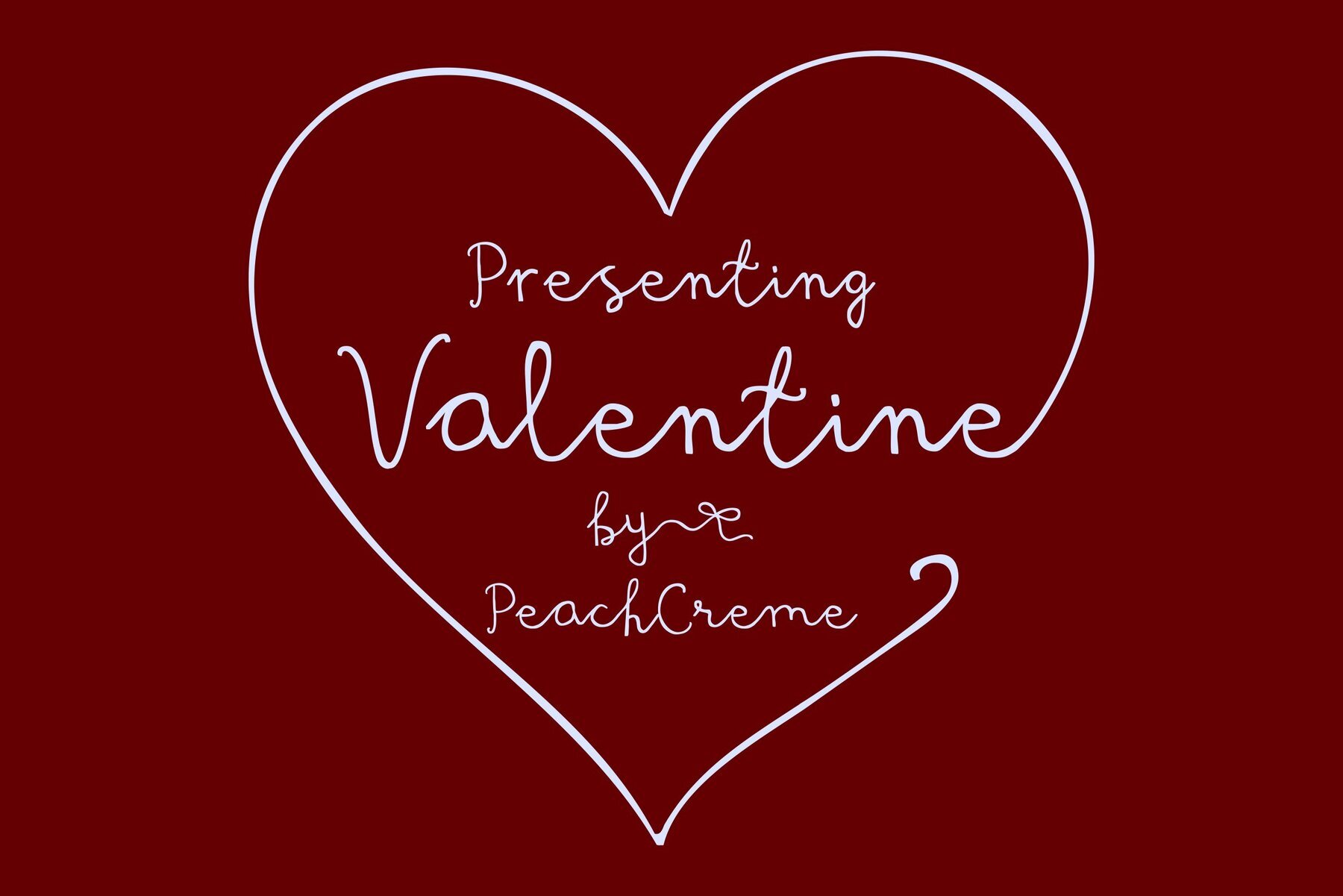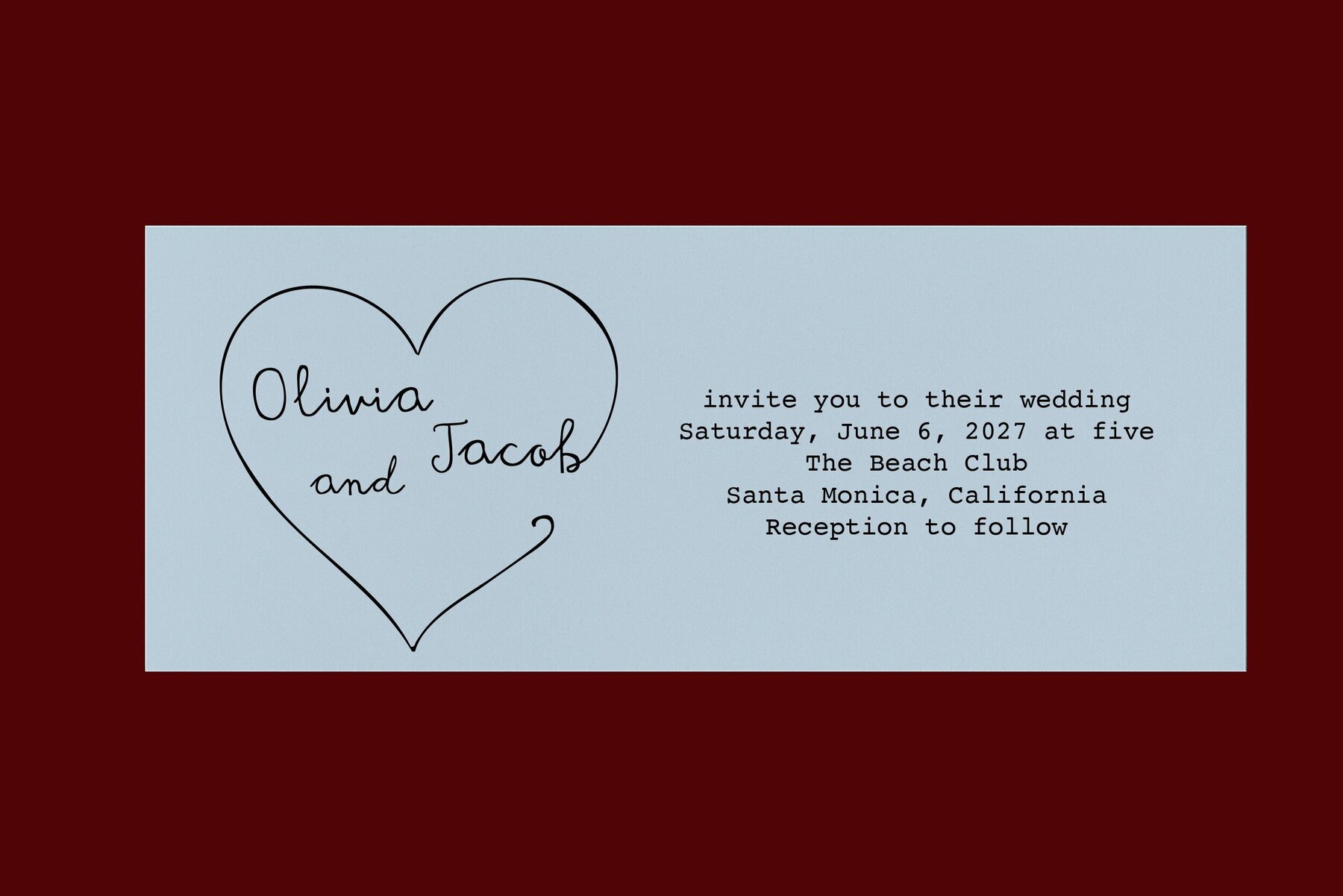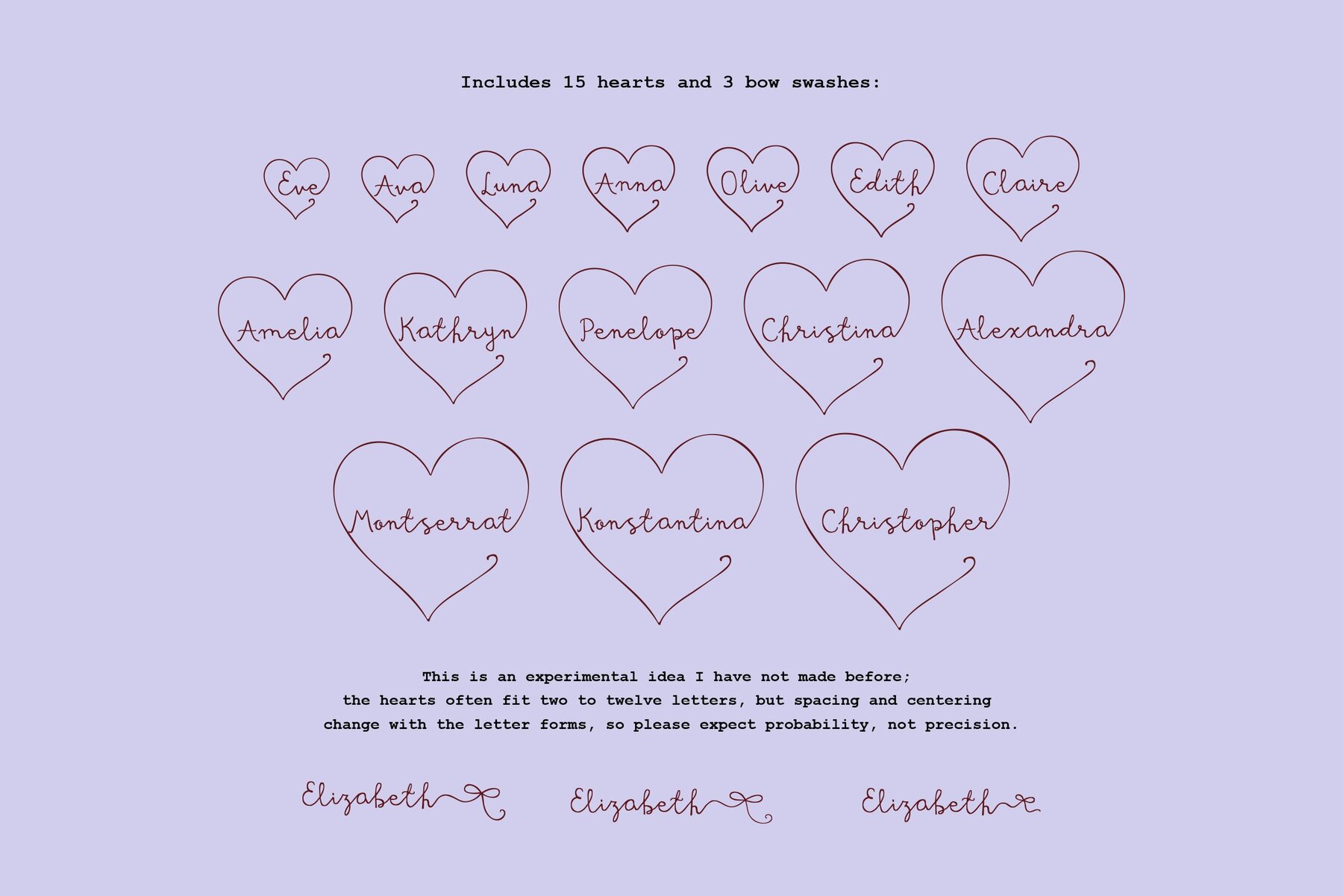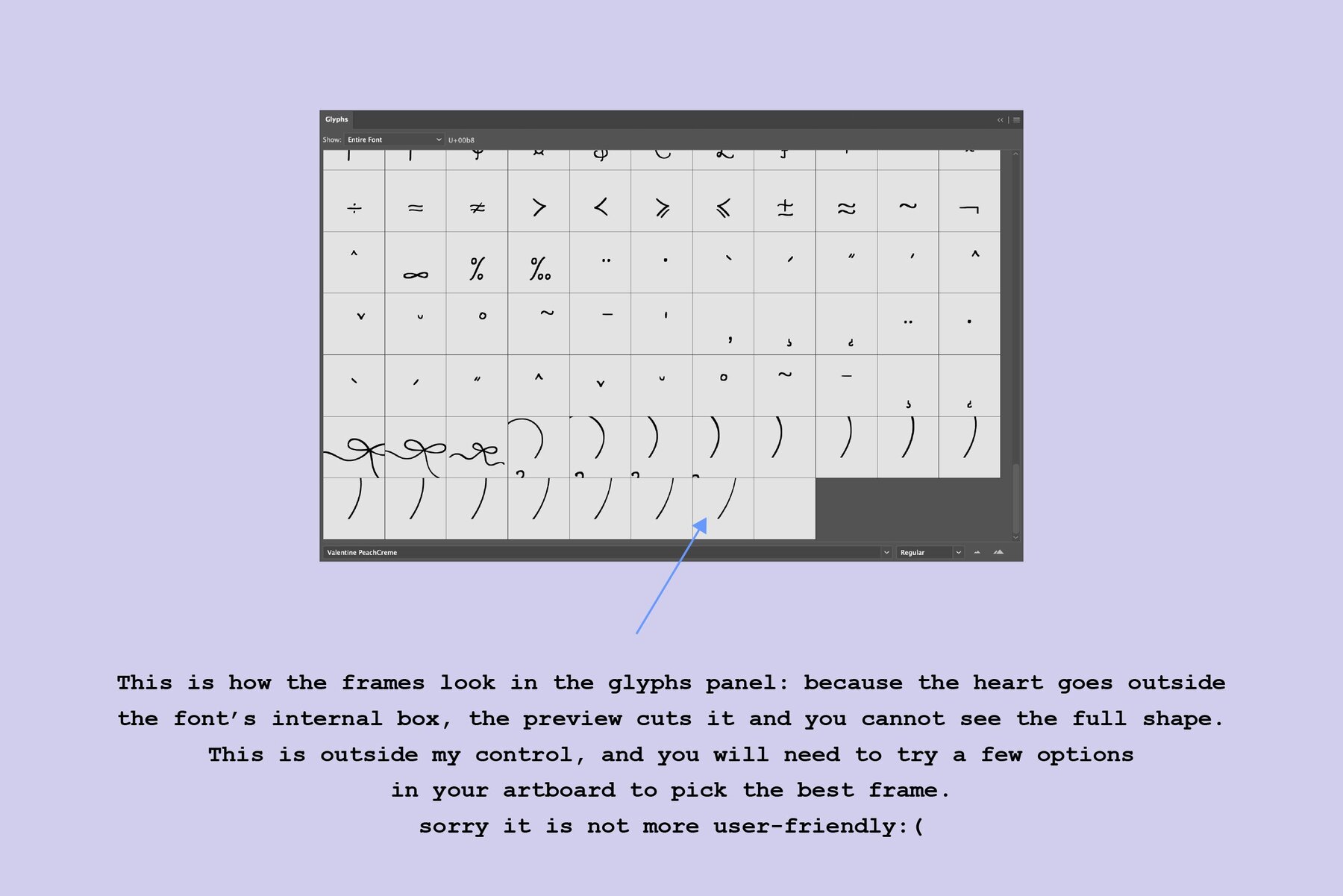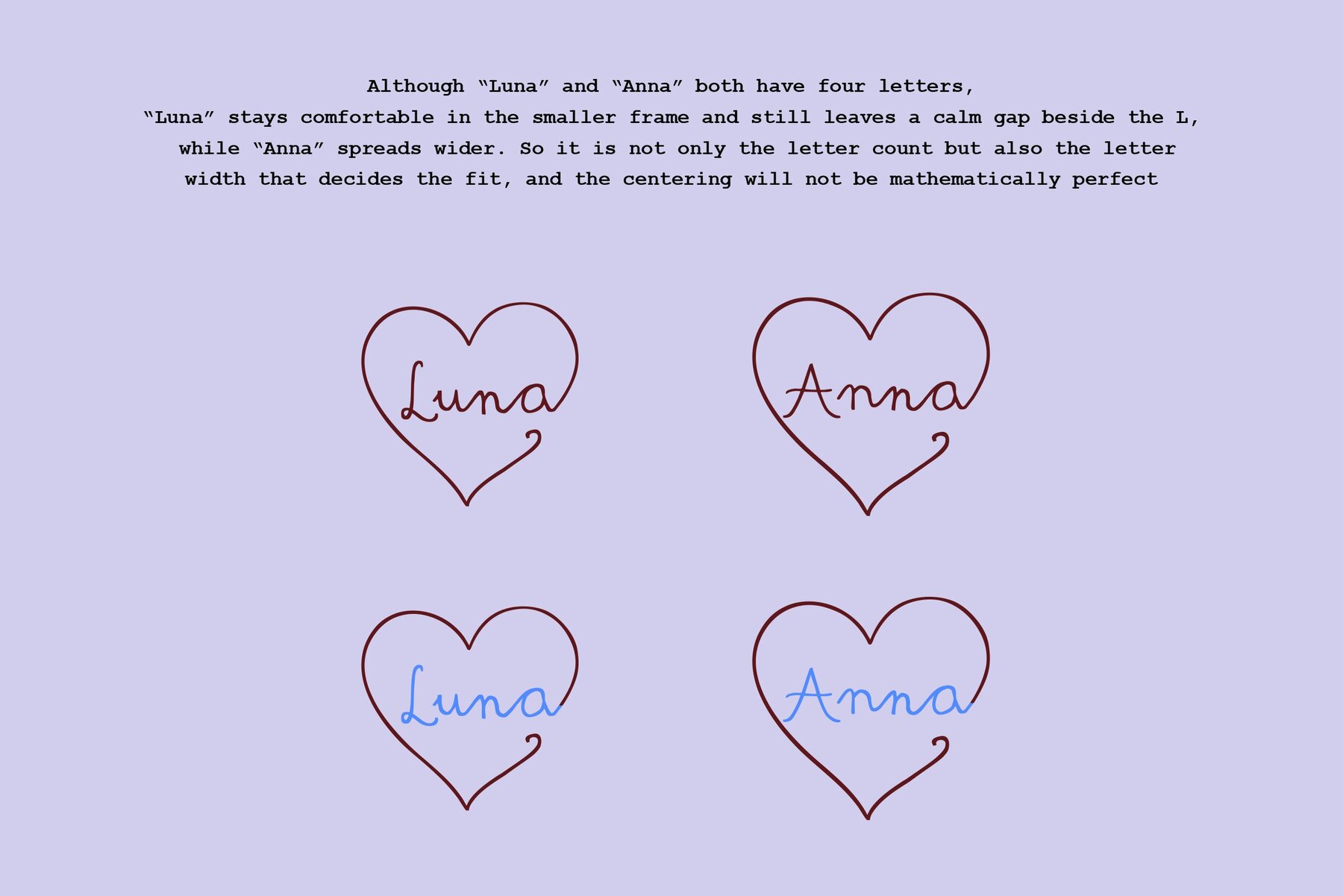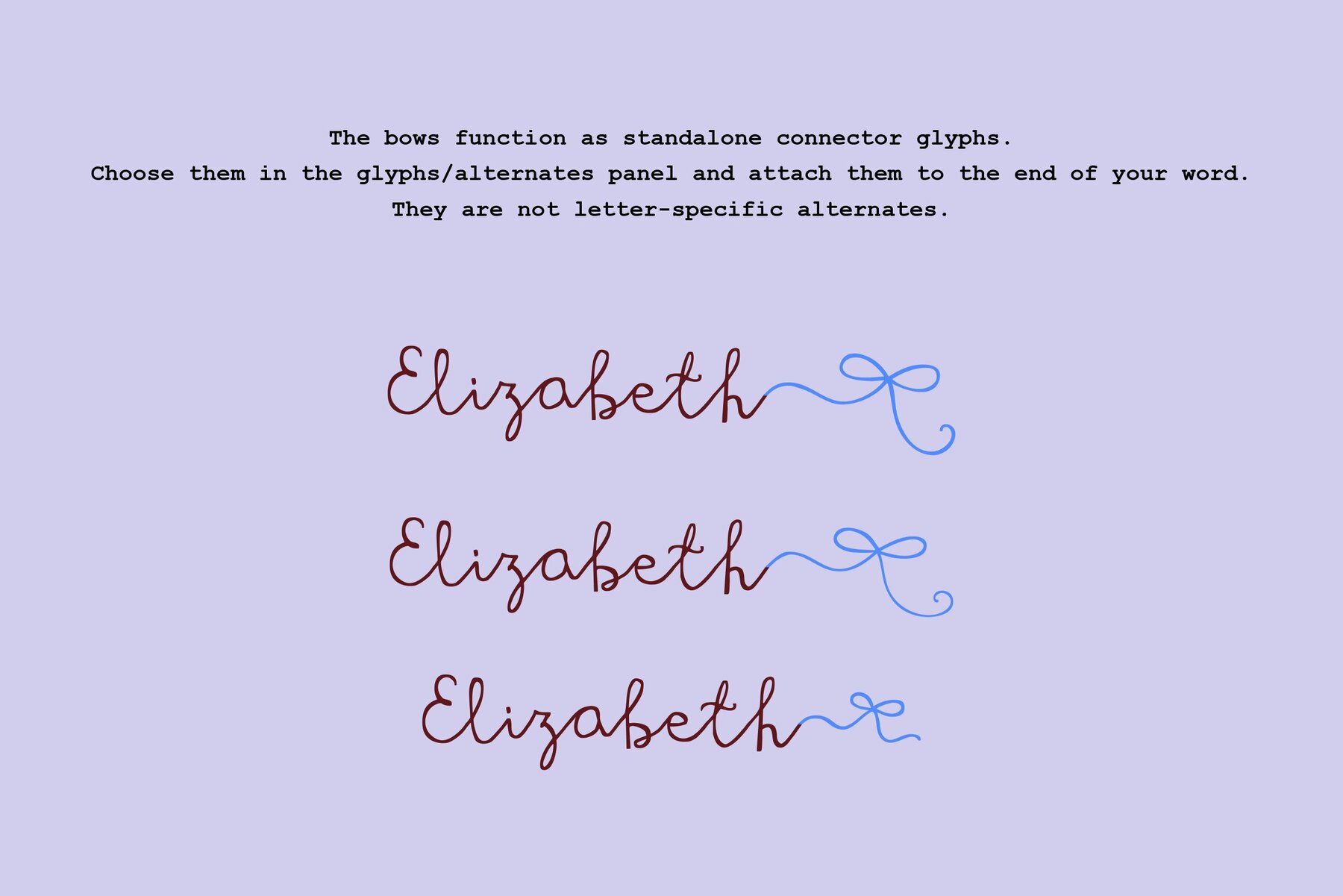
Valentine Peach Creme Font
Valentine Peach Creme is an experimental font designed for creating personalized names within hand-drawn heart shapes. This style is ideal for wedding invitations, keepsakes, or children’s gifts. The heart motif extends beyond the standard font boundary, resulting in distinctive and eye-catching letterforms. While this unconventional structure offers a unique look, it may require a few extra steps during design. In glyphs panels, heart shapes can appear cut off due to display constraints, but on your artboard, the heart outlines are fully visible and ready to use. The font best accommodates names and words ranging from two to twelve characters, making it suitable for shorter names or messages. For those seeking a simple, elegant handwriting style without the decorative hearts, the package includes a streamlined version. This lighter style functions seamlessly in design programs that may struggle with extended glyph frames.Valentine Peach Creme Font